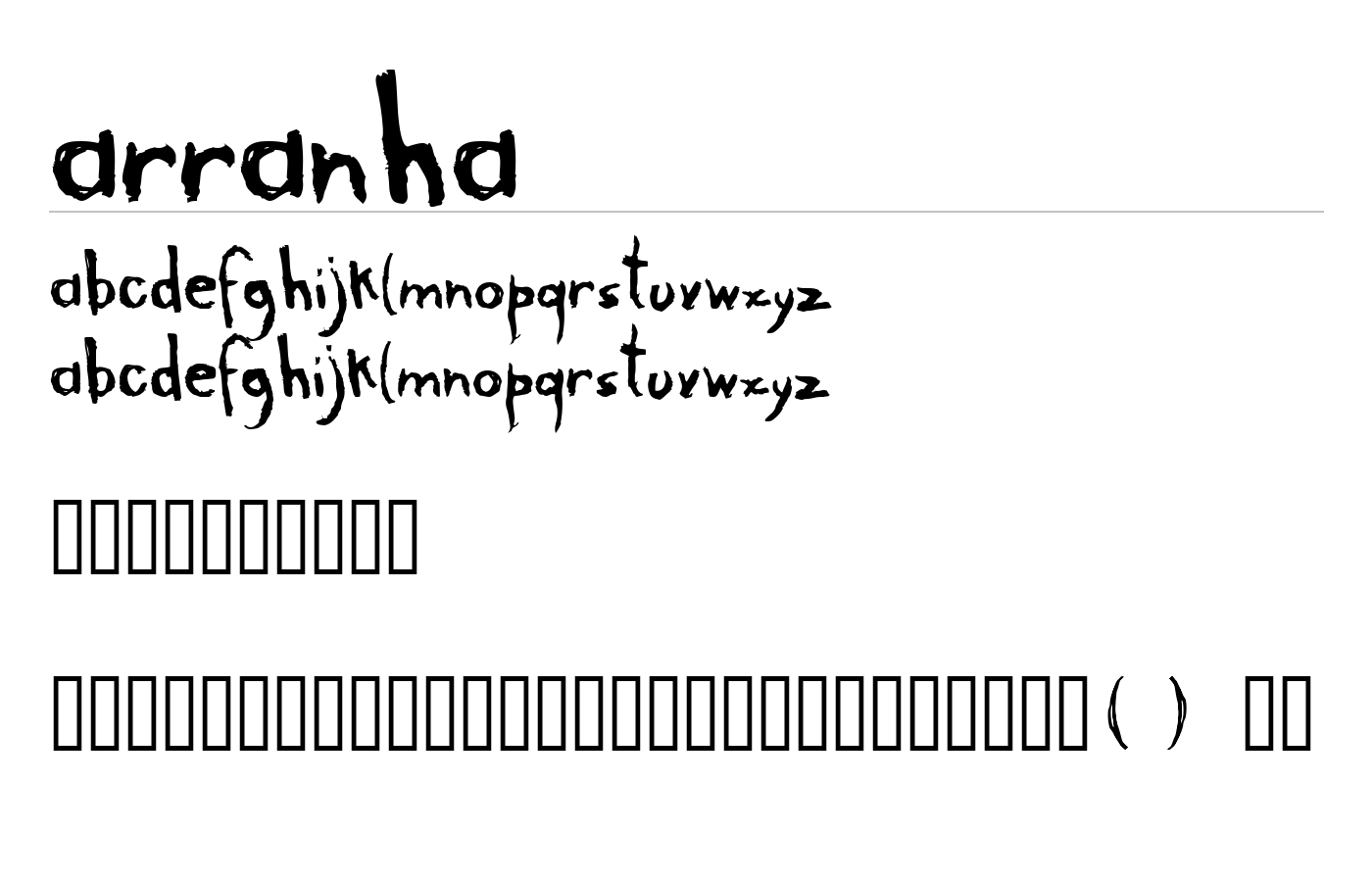
Arranha is a distinctive handwritten font with an irregular, textured style that gives it a raw, organic feel. Its uneven strokes and slightly rough edges evoke a sense of spontaneity and creativity, making it ideal for projects that aim to convey personality and uniqueness. This font works especially well for artistic branding, casual headlines, or any design needing a quirky, approachable touch.
arranha Font
About arranha Font
| Font family | arranha Font |